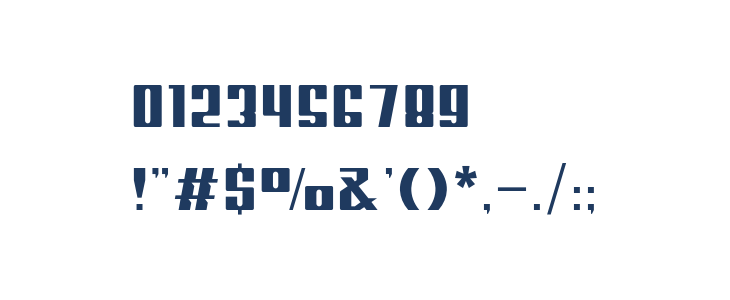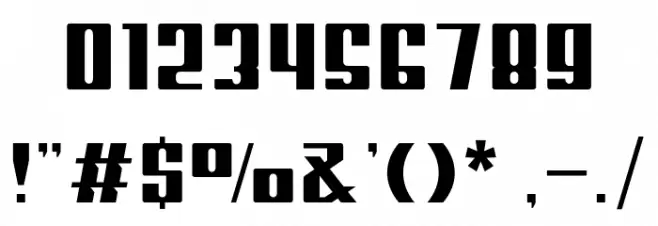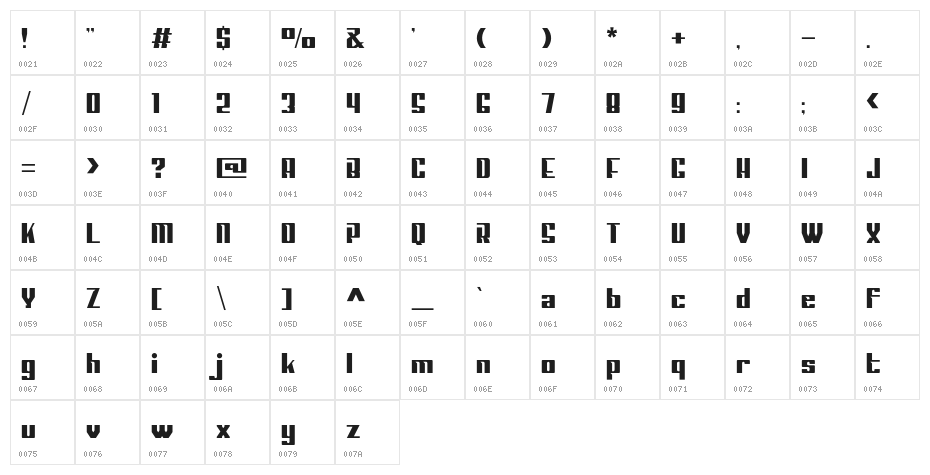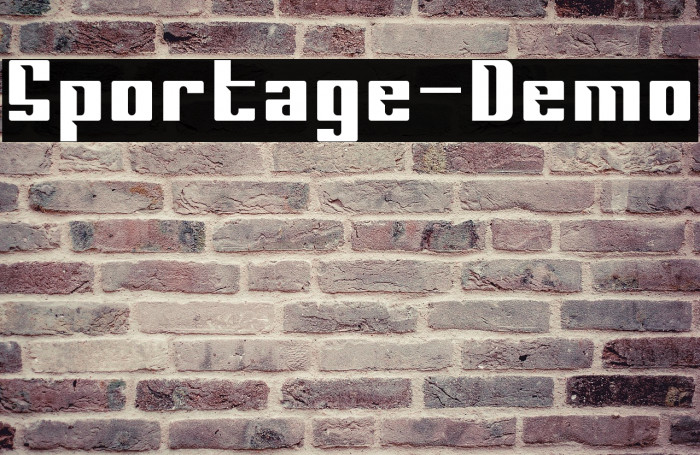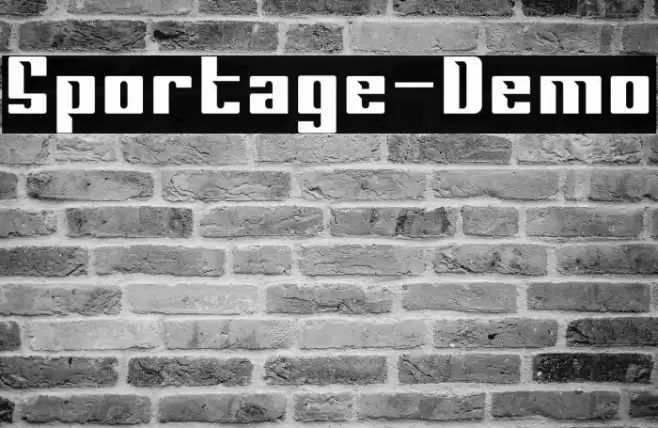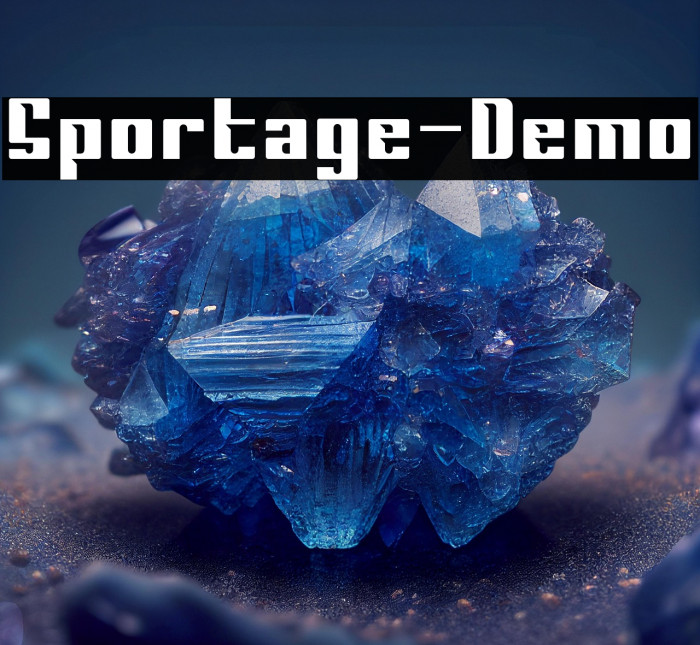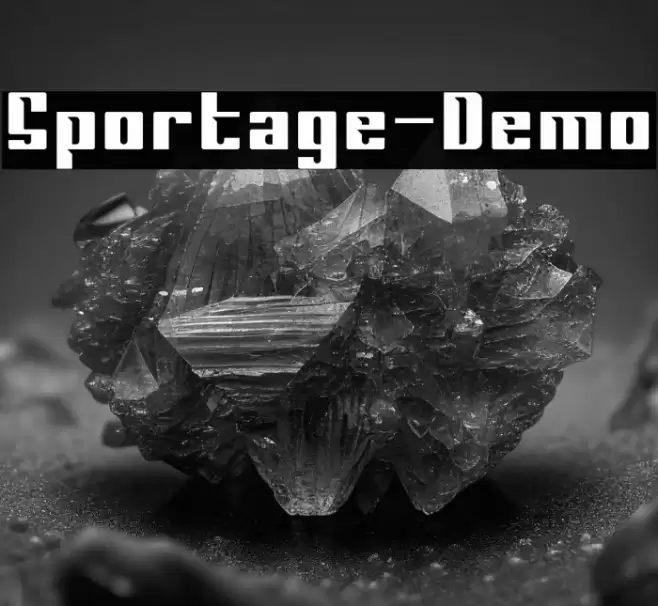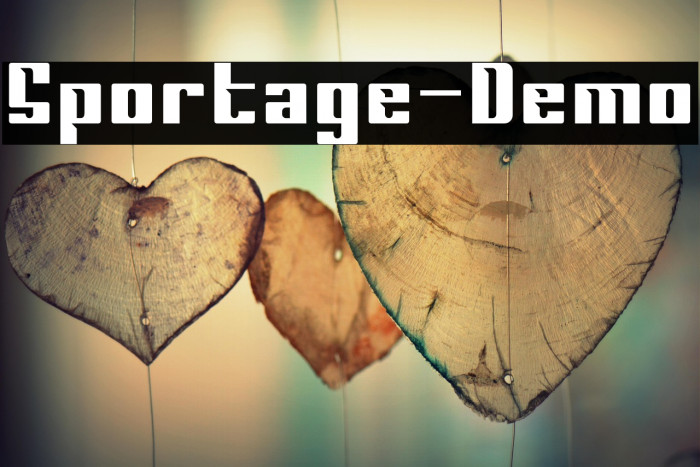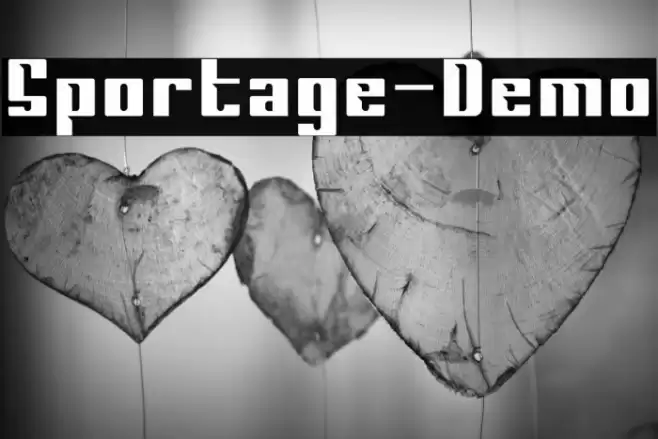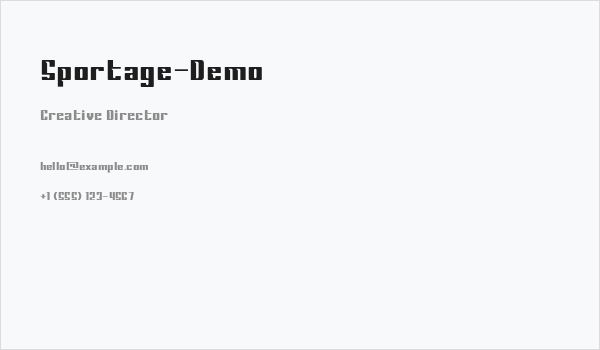
Sportage-Demo Font
Sportage-Demo Description
This font features a bold and impactful design with strong geometric shapes and angular cuts. The uppercase letters are particularly striking, with a blocky appearance that conveys strength and modernity. The lowercase letters maintain a consistent style, offering a cohesive look across different text sizes. Numbers and special characters are equally bold, ensuring readability and visual consistency. The font's unique style makes it suitable for attention-grabbing headlines and logos, where a modern and assertive aesthetic is desired.